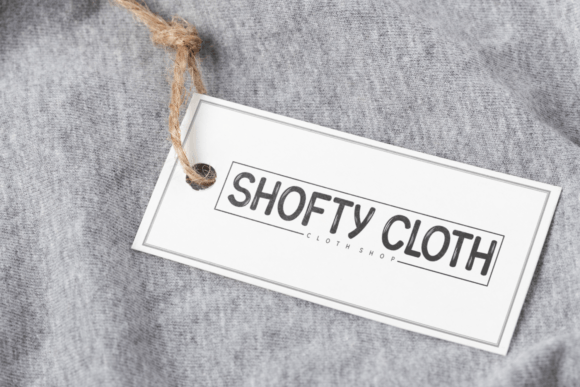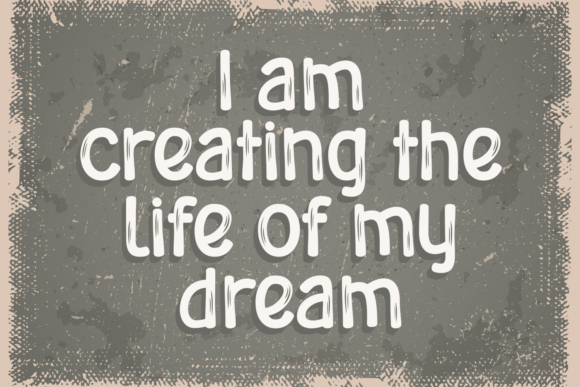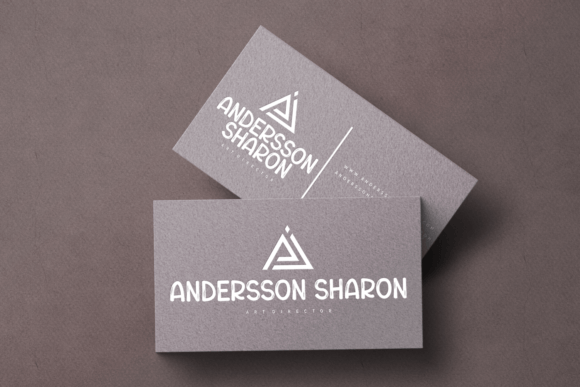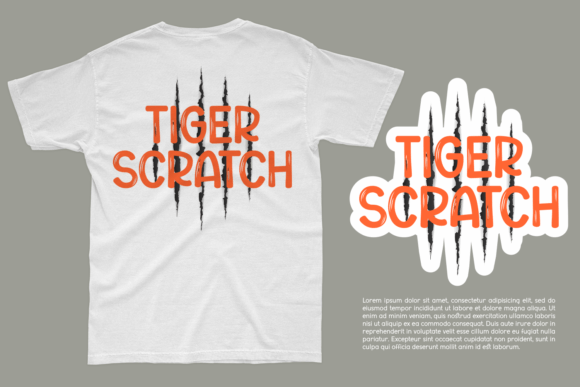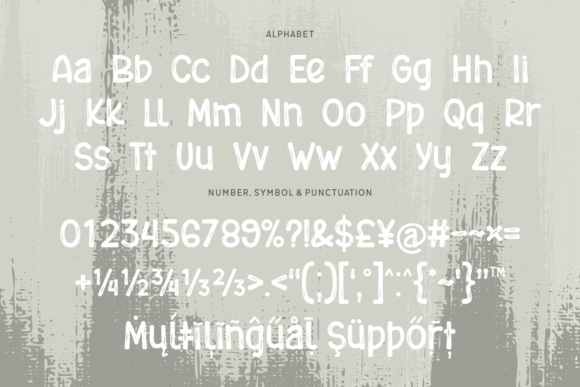
Introducing Amrix Coreck Font: The Ultimate Display Font for Creative Designs
Are you tired of using the same old fonts for your designs? Look no further! Amrix Coreck Font is a bold and striking display font that’s sure to take your creations to the next level. With its unique scratched characters, this font is perfect for designers and crafters looking to add a touch of edginess to their work.
What Makes Amrix Coreck Font So Special?
Amrix Coreck Font is a one-of-a-kind display font that features scratched characters, giving it a distinctive and rugged look. The font’s bold and striking appearance makes it perfect for a wide range of design ideas, from fabric prints to branding, paper crafts, and more. Whether you’re a professional designer or a crafter looking to add some personality to your projects, Amrix Coreck Font is sure to impress.
Uses for Amrix Coreck Font
So, what can you use Amrix Coreck Font for? The possibilities are endless! Here are just a few ideas to get you started:
- Fabrics and Textiles: Add a touch of personality to your fabric designs with Amrix Coreck Font. Perfect for creating unique and eye-catching prints for clothing, home decor, and more.
- Branding and Advertising: Make a bold statement with your brand’s logo or advertising materials. Amrix Coreck Font is sure to grab attention and leave a lasting impression.
- Paper Crafts: Add some edge to your paper crafts, such as card making, scrapbooking, and journaling. Amrix Coreck Font is perfect for creating unique and personalized projects.
- Signage and Displays: Use Amrix Coreck Font to create eye-catching signs and displays for your business or event.
Why Designers and Crafters Love Amrix Coreck Font
So, why do designers and crafters love Amrix Coreck Font? Here are just a few reasons:
- Unique and Versatile: Amrix Coreck Font is a one-of-a-kind font that’s versatile enough to be used in a wide range of design projects.
- Easily Readable: Despite its bold and scratched appearance, Amrix Coreck Font is surprisingly easy to read, making it perfect for both digital and print designs.
- High-Quality: Amrix Coreck Font is a high-quality font that’s designed to produce crisp and clear results, even at large sizes.
How to Use Amrix Coreck Font in Your Designs
Using Amrix Coreck Font in your designs is easy! Here are a few tips to get you started:
- Pair it with Other Fonts: Amrix Coreck Font pairs well with a variety of other fonts, so don’t be afraid to experiment and find the perfect combination for your design.
- Experiment with Colors: Amrix Coreck Font looks great in a wide range of colors, so try experimenting with different hues and shades to find the perfect look for your design.
- Play with Size: Amrix Coreck Font is designed to be versatile, so don’t be afraid to experiment with different sizes to find the perfect fit for your design.